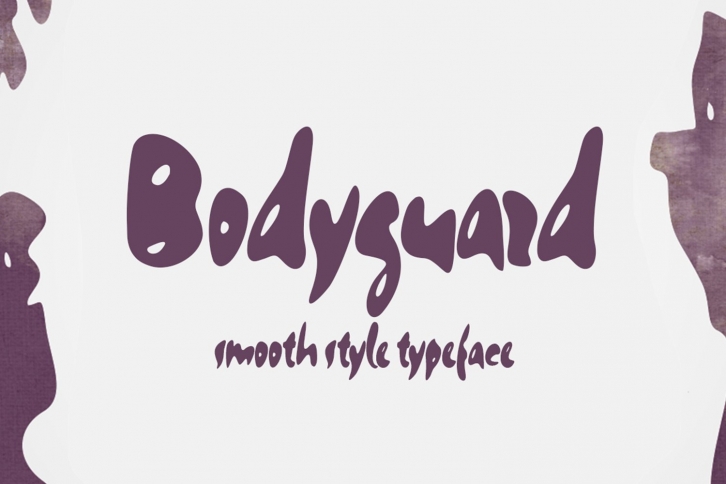
Bodyguard is a trendy and unique font with an authentic style. It was designed by BONJOURTYPE and it's a great choice for creative people who need such a font. It was released on January 15, 2021 and the file size is 17.11 MB. Bodyguard will add an organic vibe to any design idea!